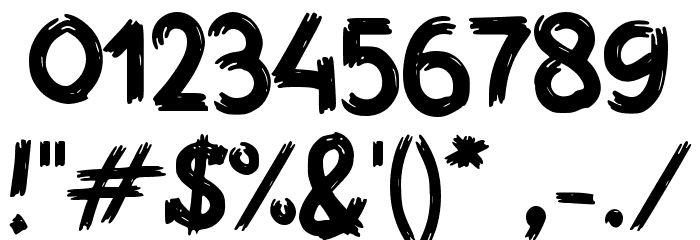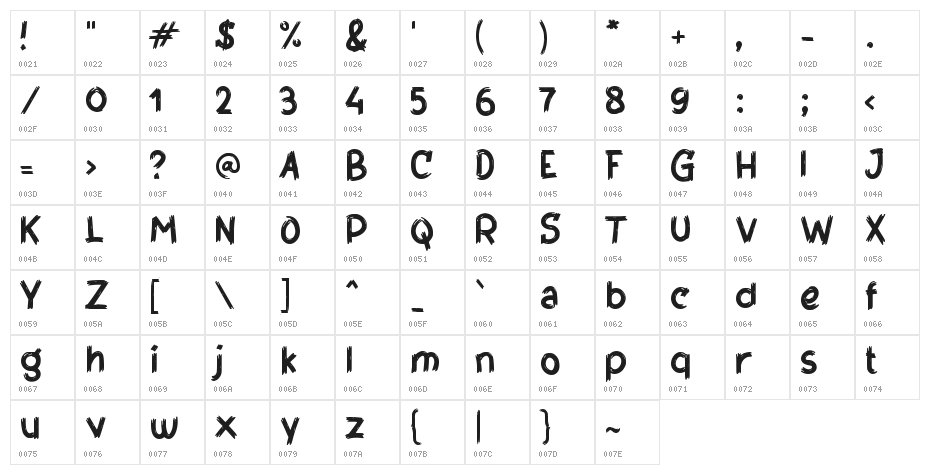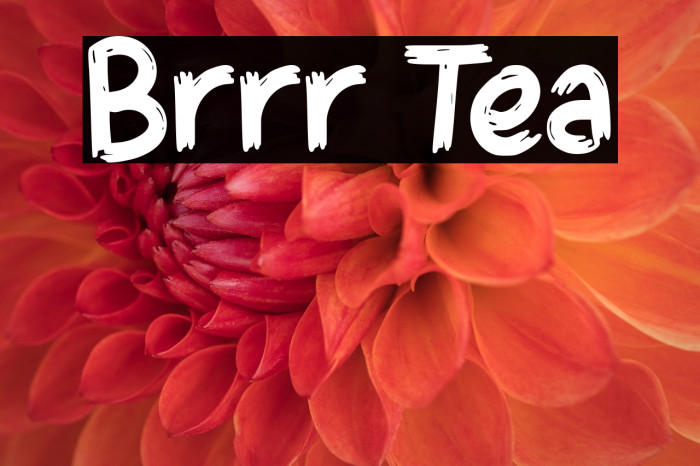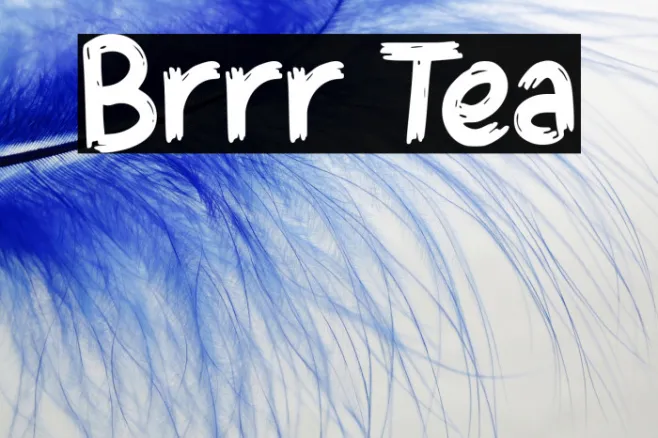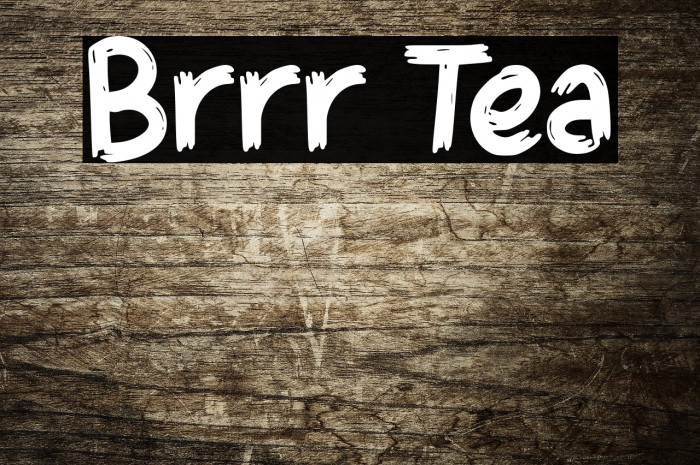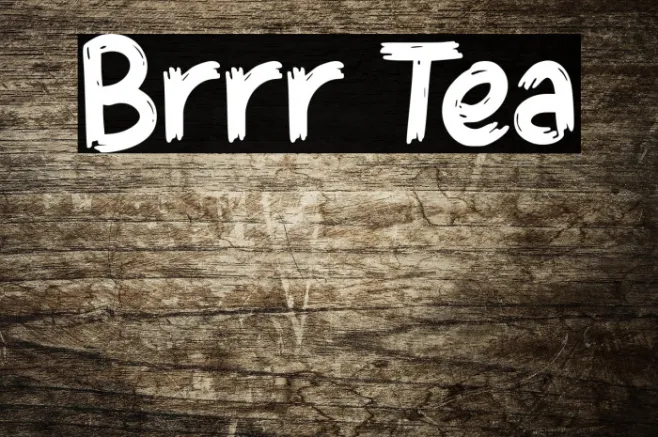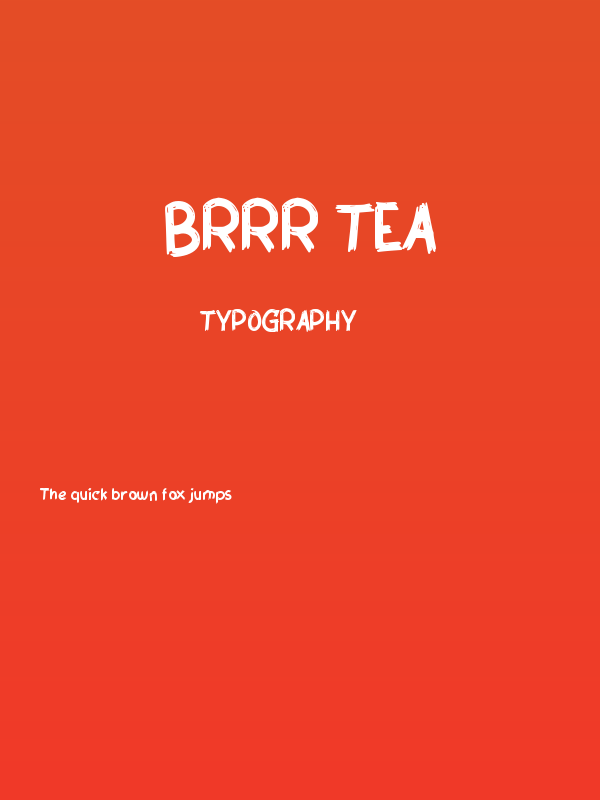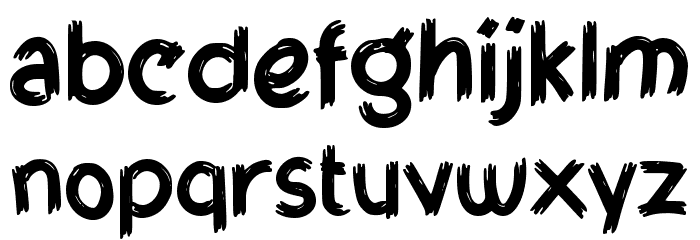
Brrr Tea Font
Brrr Tea Description
This font features a bold and dynamic brushstroke style, giving it a lively and energetic appearance. The characters are crafted with uneven edges and varying thickness, creating a sense of movement and spontaneity. The uppercase and lowercase letters maintain a consistent aesthetic, with the uppercase being slightly more pronounced. Numbers and special characters are designed to match the overall style, ensuring uniformity across all glyphs. The font's playful and artistic nature makes it suitable for projects that require a touch of creativity and flair.
| Proposed Projects | Ideal for posters, creative branding, artistic projects, and event invitations. |